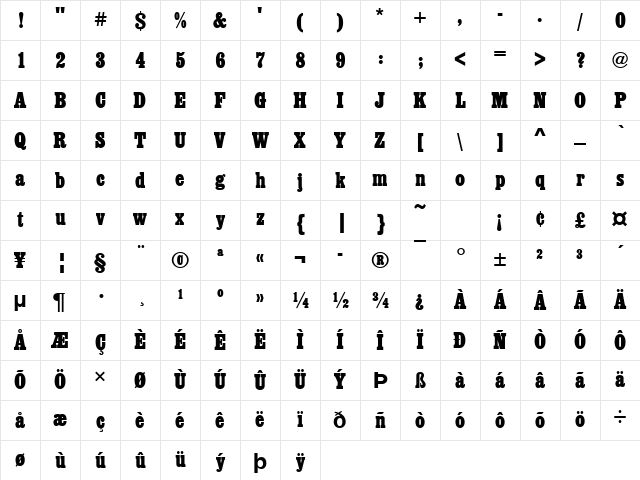
Egyptienne Becker D Bold Cond Regular
Complete Egyptienne Becker D Bold Cond Regular glyph index. Displaying only characters natively supported by Egyptienne Becker D Bold Cond Regular font.
Design Context for Egyptienne Becker D Bold Cond
Egyptienne Becker D Bold Cond is a composed and adaptable typeface that performs quietly and consistently across a wide range of design contexts. Its bold stroke weight gives it real presence on the page. Its narrow stance lets it pack a punch even in space-constrained designs.
Pro Tip: Use Egyptienne Becker D Bold Cond in both headline and body roles to test its range before committing to a single application.